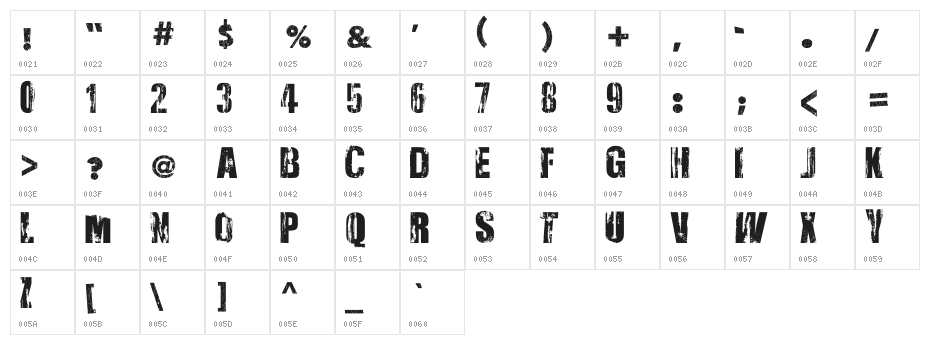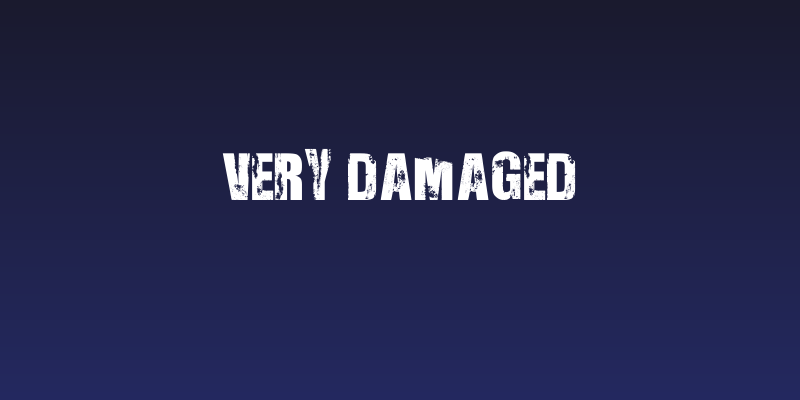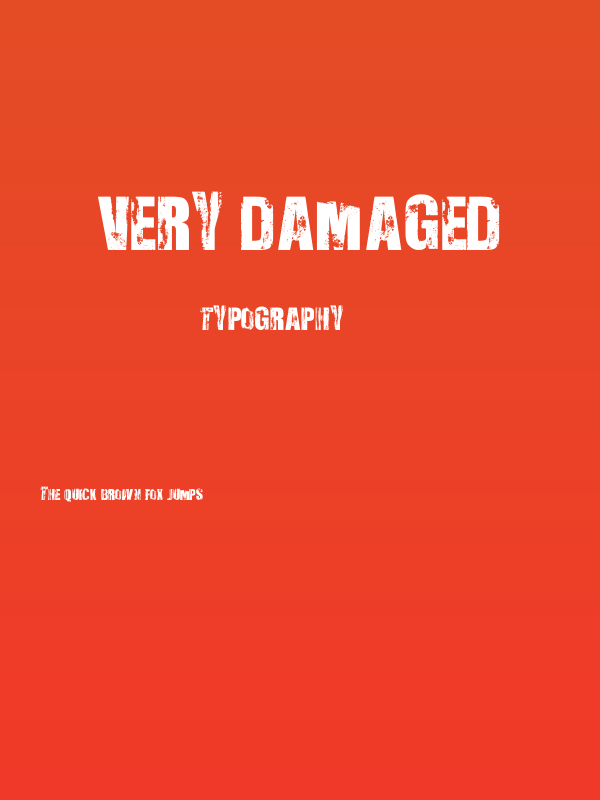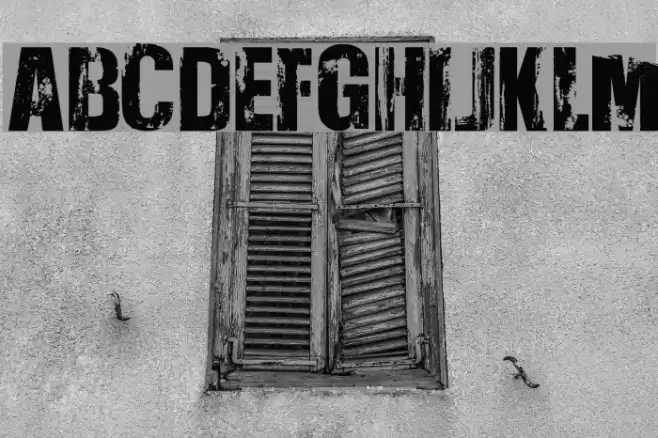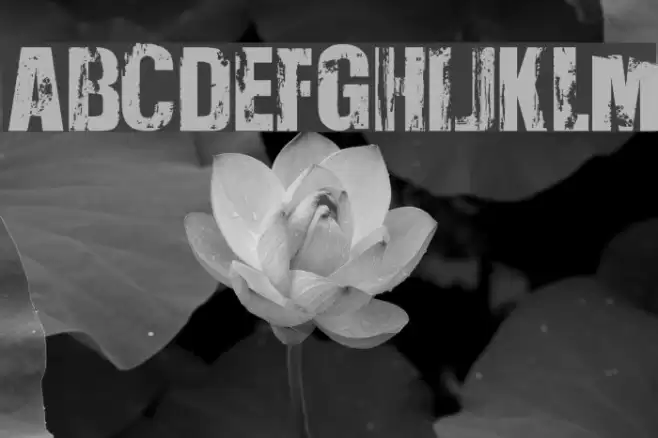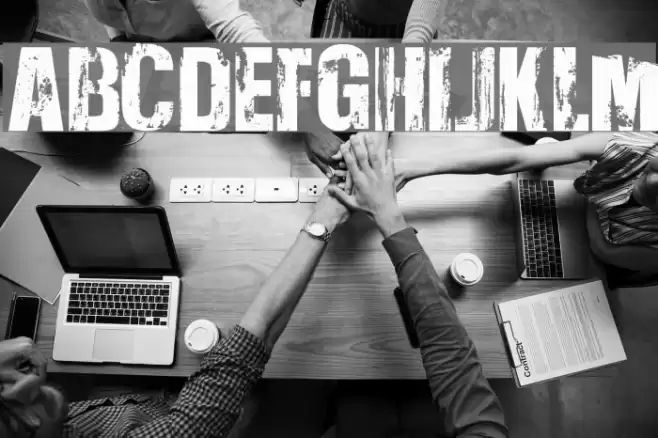
Very Damaged Font
Very Damaged Description
This font features a distressed, grunge style with a bold and impactful appearance. The characters are heavily textured, giving them a worn and rugged look, as if they have been weathered over time. The uppercase and lowercase letters, as well as numbers and special characters, all share this unique, rough aesthetic. The font's design is reminiscent of urban street art or vintage posters, making it stand out with its bold and edgy personality. The irregularities in the texture add a dynamic and energetic feel, perfect for projects that require a strong visual statement.
| Overall Style | Grunge, Urban, Vintage |
| Proposed Projects | Ideal for album covers, posters, streetwear branding, or any project needing a gritty, urban vibe. |